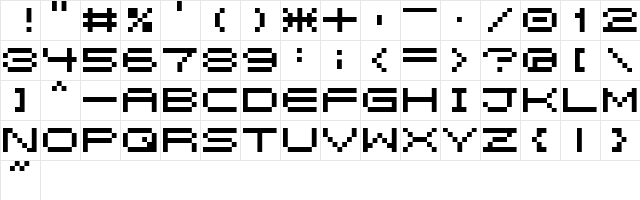
5pxbus Regular
Design Context for 5pxbus Typeface
5pxbus takes a measured approach to typography — its balanced proportions and neutral character make it a reliable workhorse for both digital and print work.